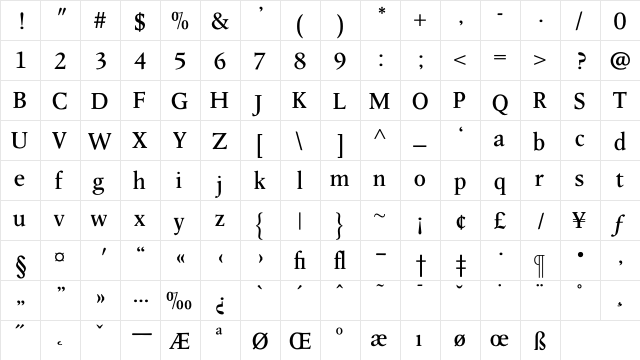
LeightonBold Regular
Design Context for LeightonBold Typeface
LeightonBold is a composed and adaptable typeface that performs quietly and consistently across a wide range of design contexts. Its bold stroke weight gives it real presence on the page.